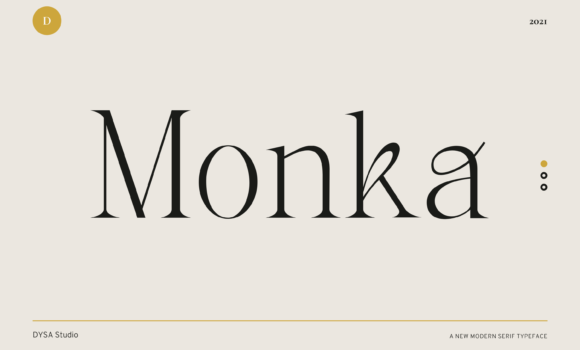
monka
Monka Font - Featured Image
Monka Font – Free Download Introduction to Monka Font Monka is a modern and extremely unique serif font, excellent for businesses or branding. 📸 Preview Gallery 6 images 📌 Product Name Monka Font 👤 Author DYSA Studio 📂 Category Explore